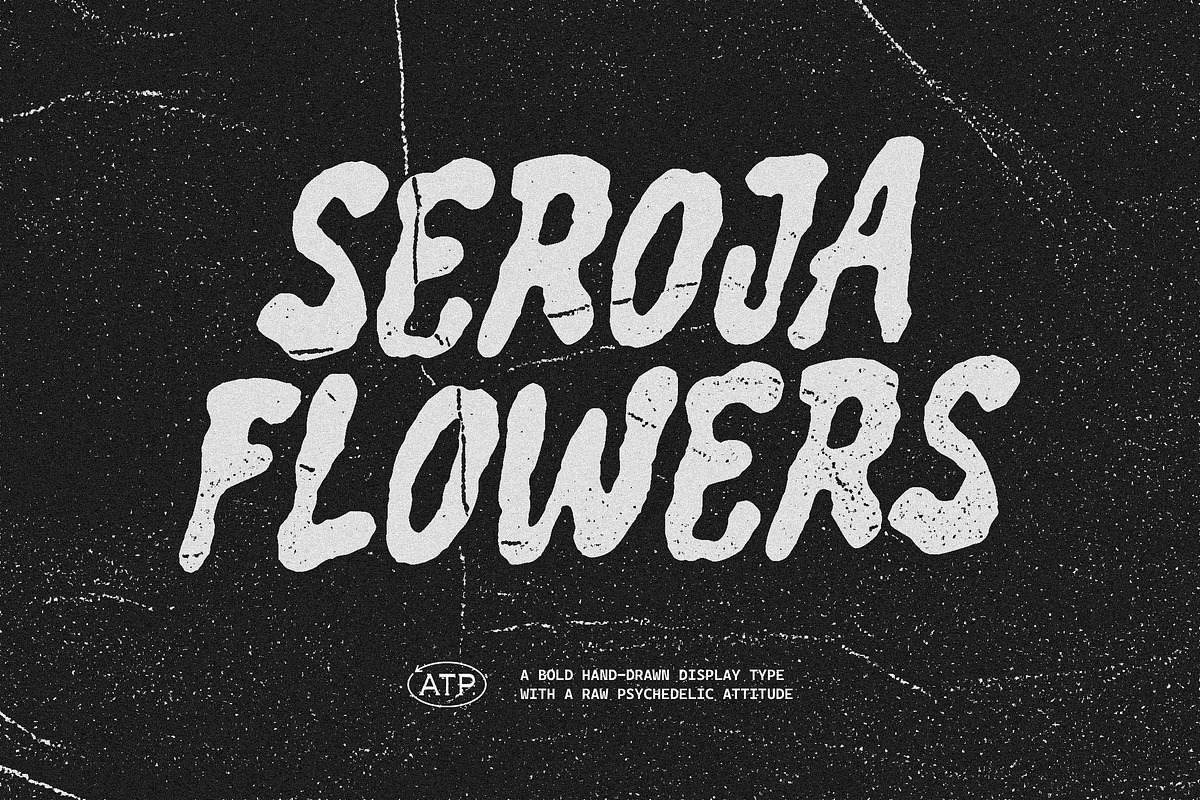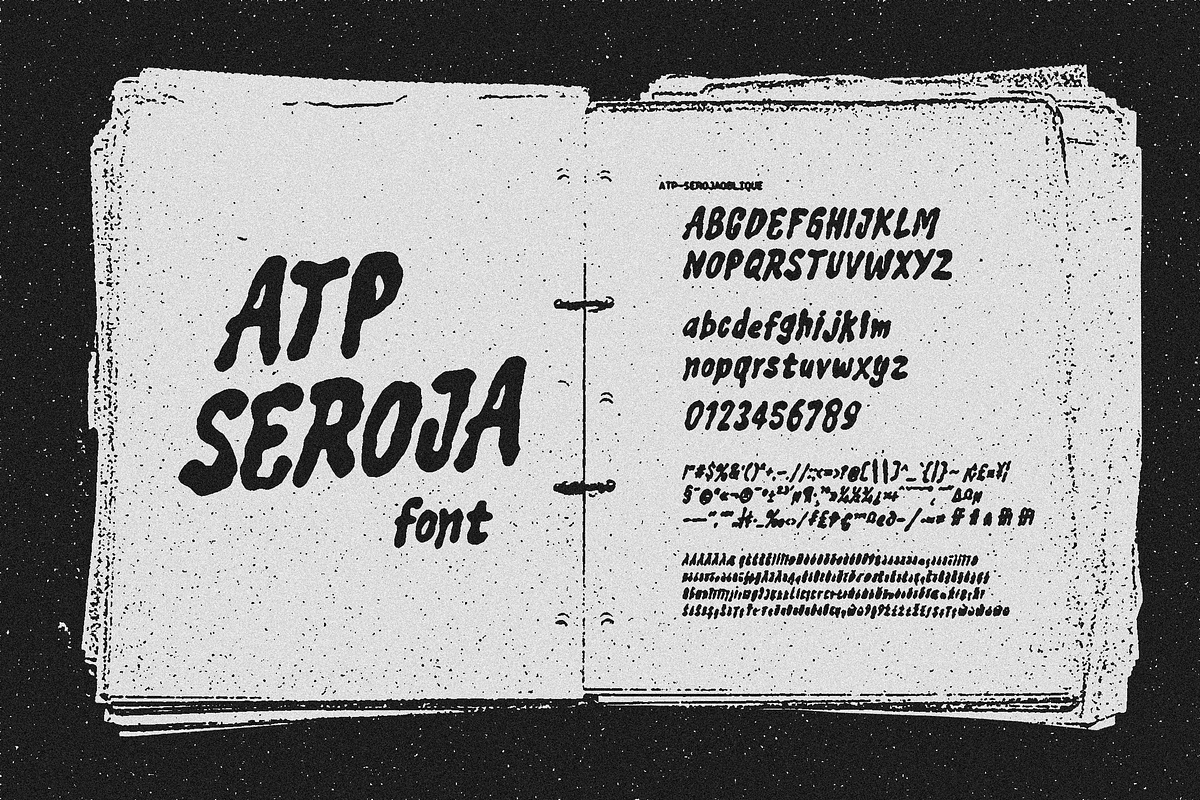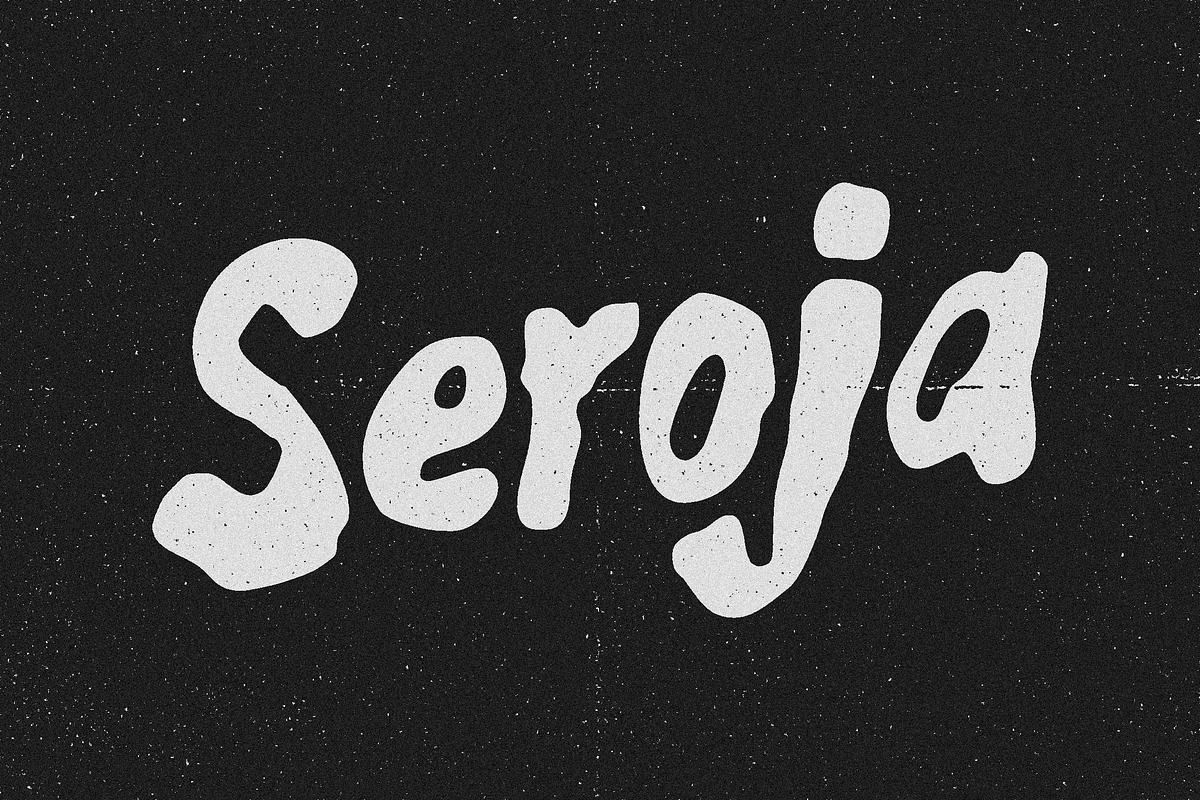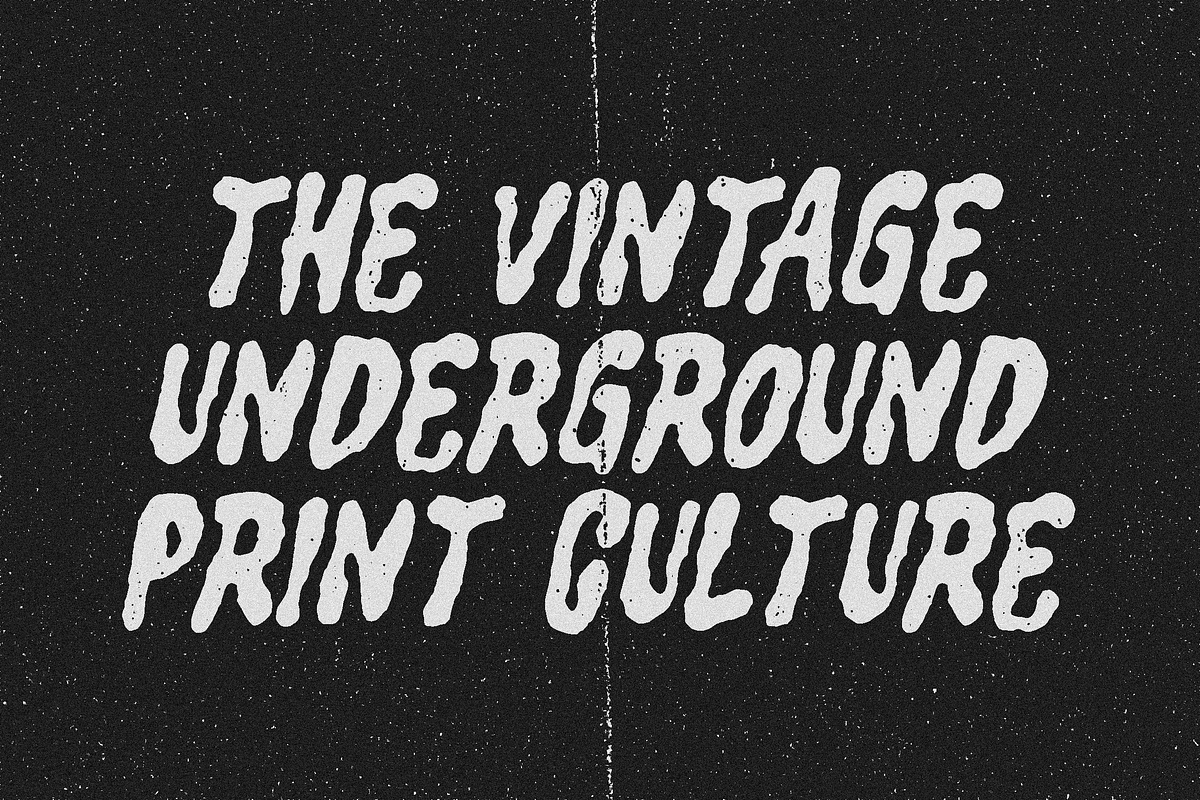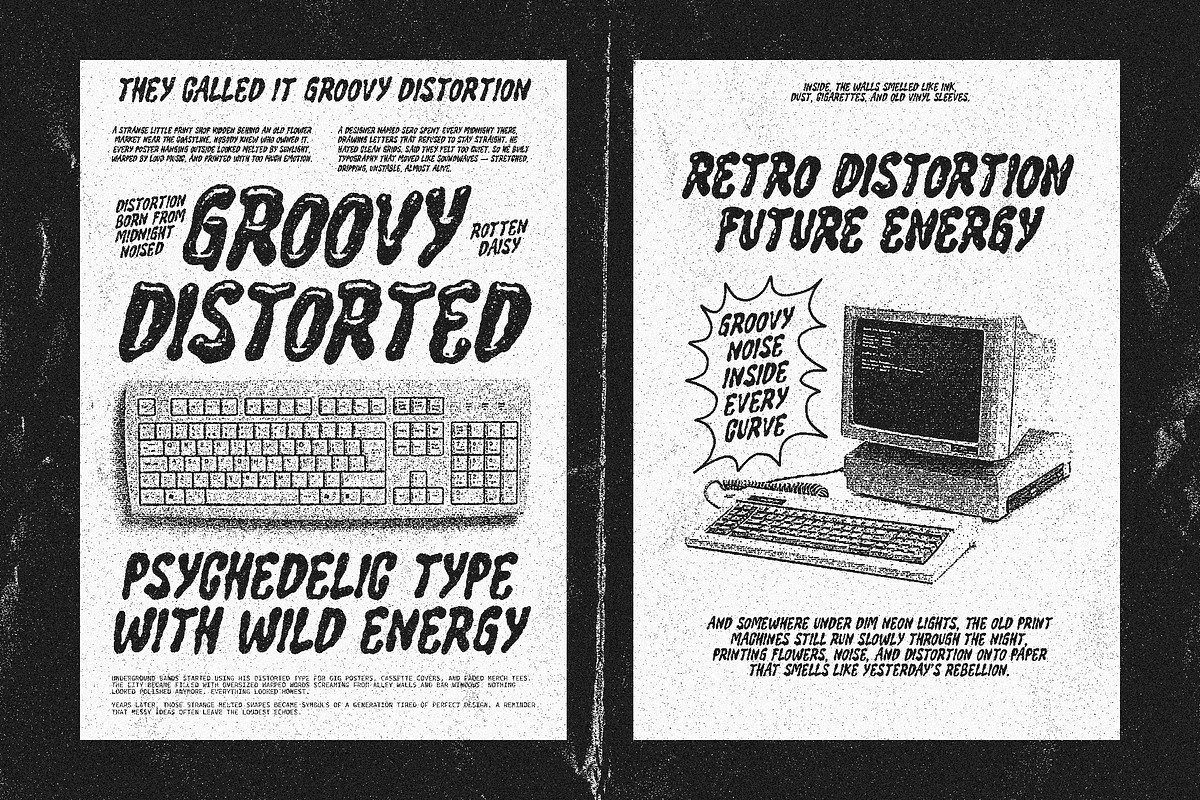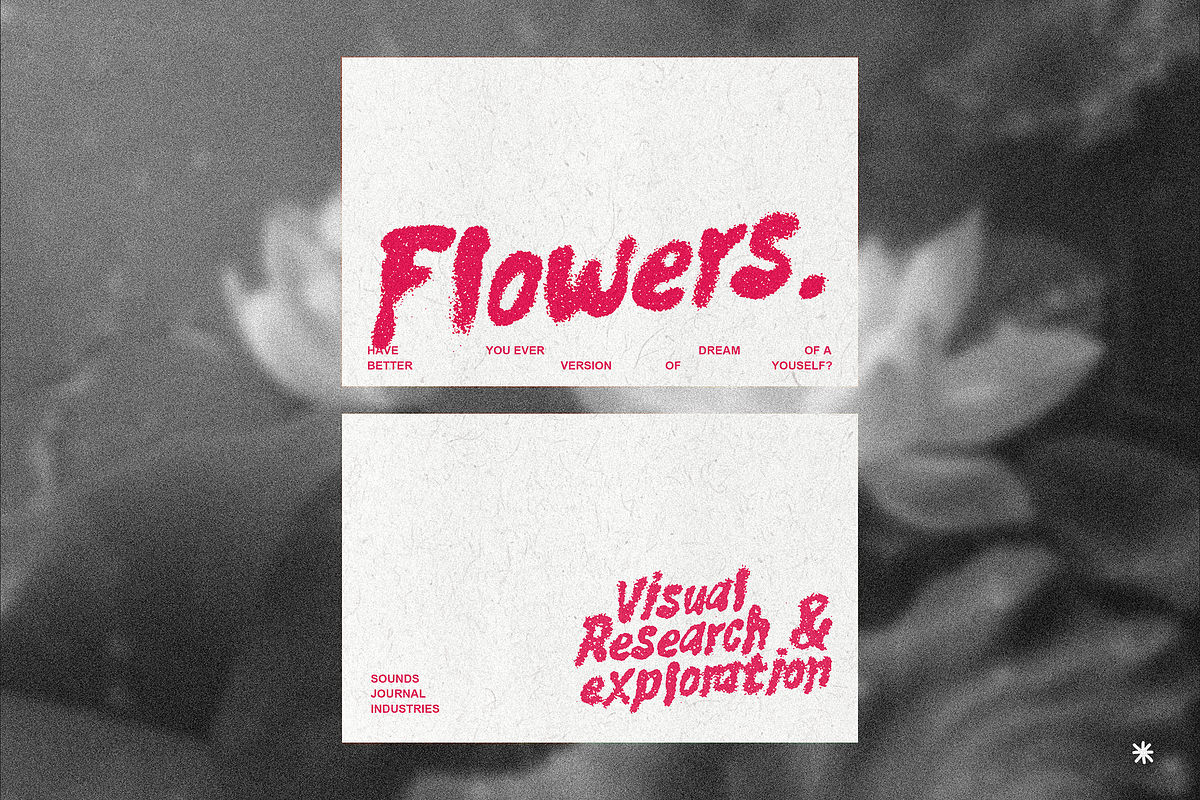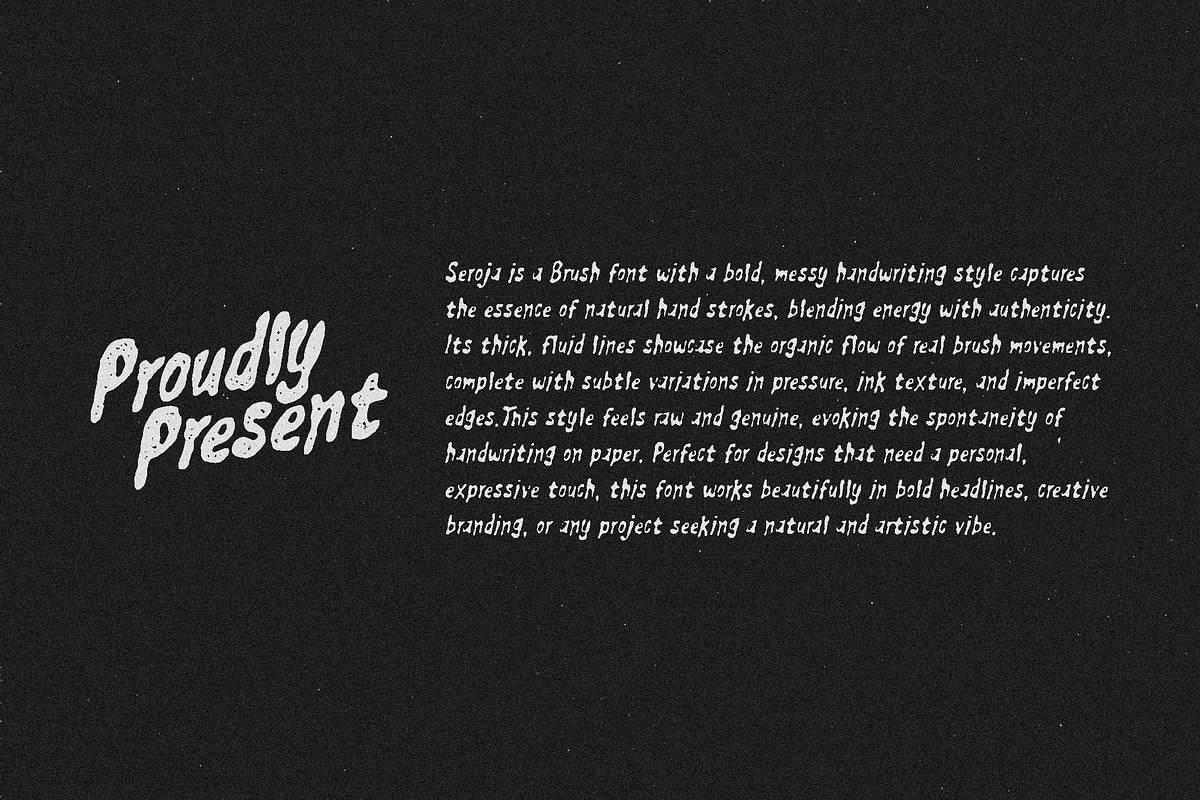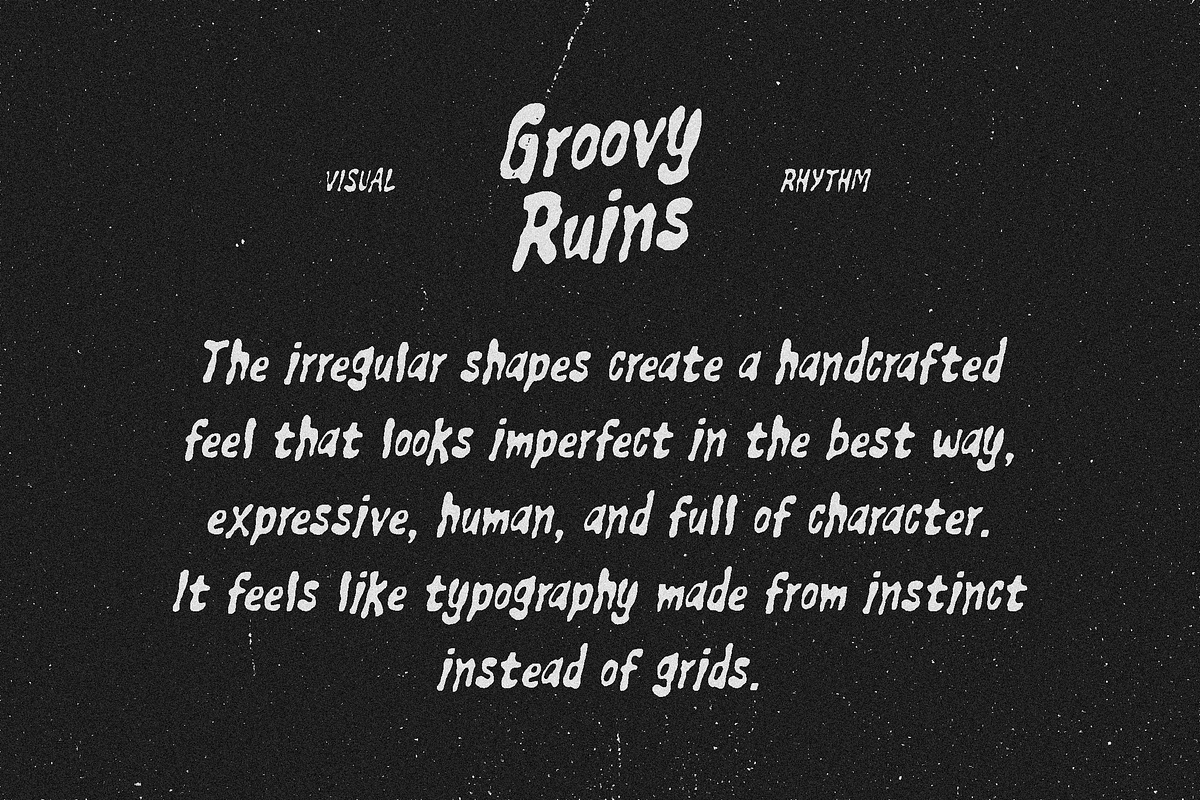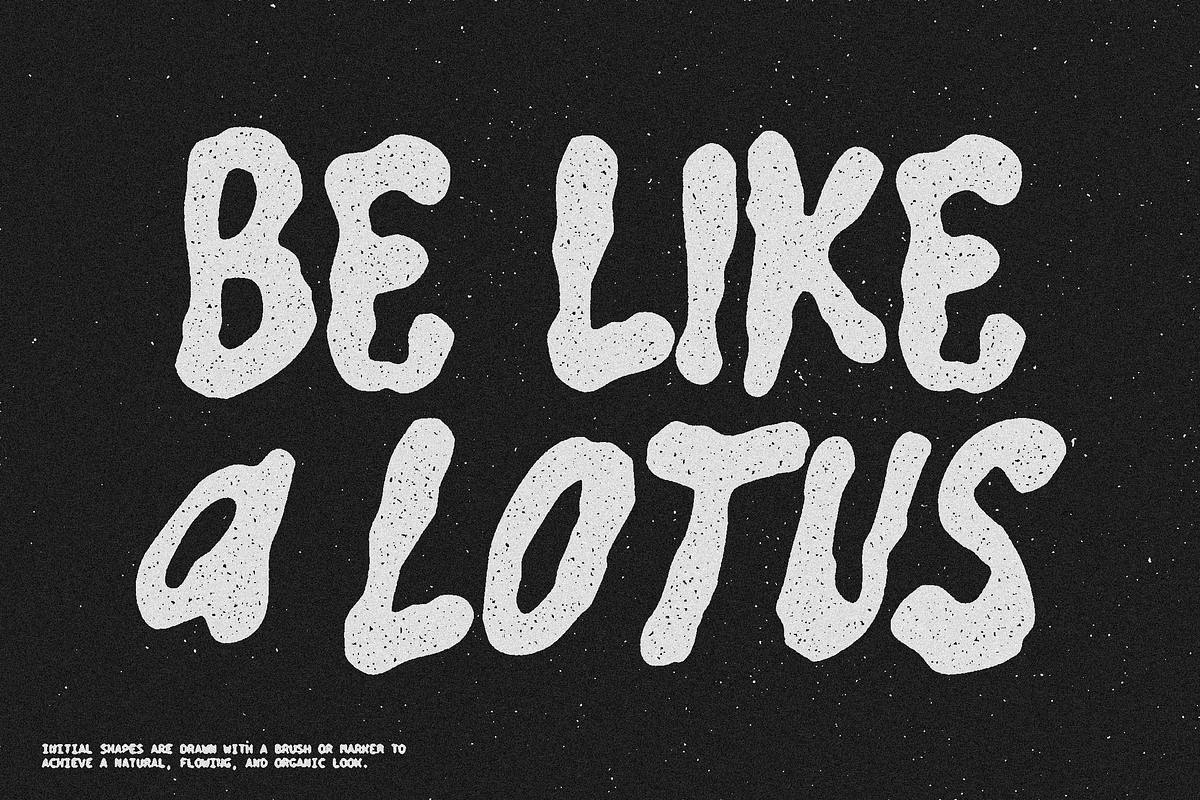
Seroja - Groovy Display Font
Seroja is a bold handmade display font with organic dripping ink shapes and chunky curves. Available in 2 styles (Regular & Light), it brings a playful and expressive vibe to any design. Perfect for posters, branding, packaging, social media, and headlines, this font adds a quirky, fluid charm that stands out in both digital and print projects.